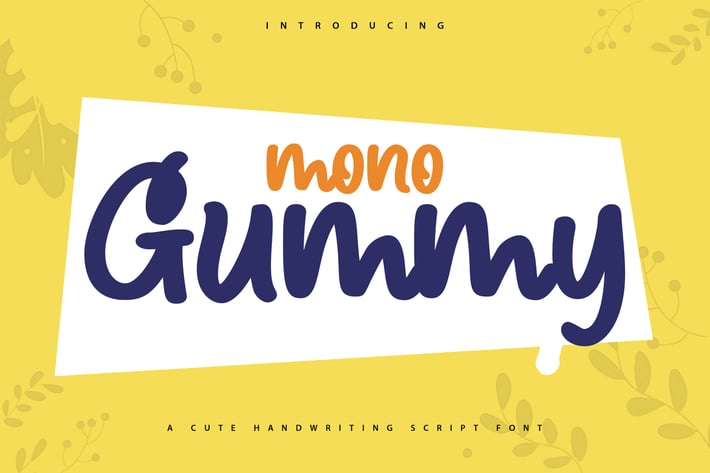
Mono Gummy | A Cute Handwriting Script Font
Mono Gummy | A Cute Handwriting Script Font with a calligraphy style, So beautiful on invitation like greeting cards, branding materials, business cards, quotes, posters, and more!